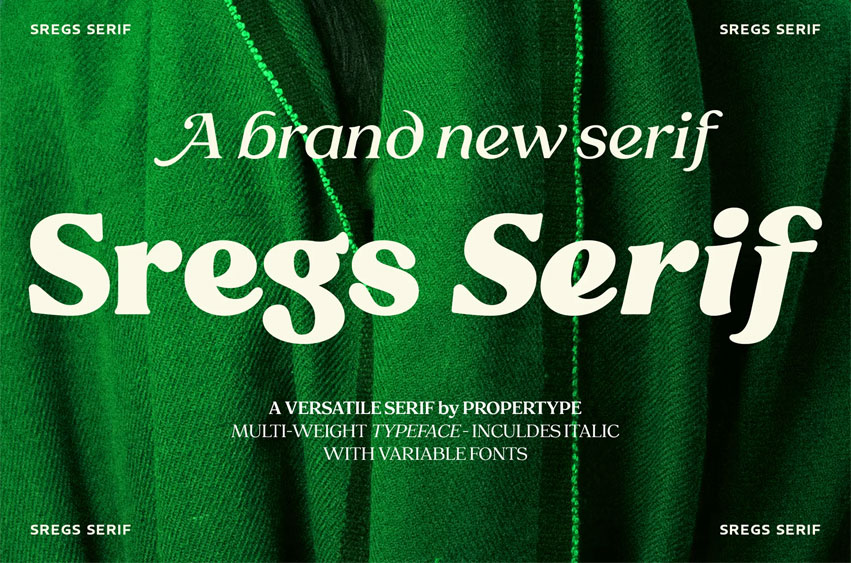
Sregs Serif Font
Sregs Serif Font family inspired by popular 1960s-80s typography. Combined with modern nuances that are much in vogue in now days. Reflexive serifs with soft transitions make the letters easy to read and recognize.
Its 7 weight with 2 style (Standard and Italic) + 2 Variable Fonts format will provide several options that will help you find the ideal typographic feel for your project. Made for use in branding projects, large-scale printing such as billboards, signboards, titles, headlines, writing on short paragraphs, books title, page titles, taglines, websites, apps, logos, etc.
Several Alternatives letters can be used to create a variety of design style or to make changed some letter in text.